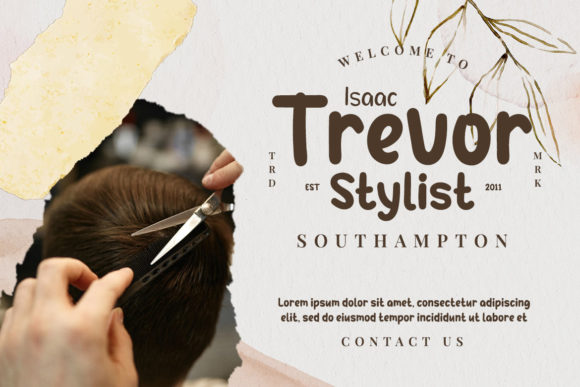
Gefuh Font
db-ku.com - Script & Handwritten -- Gefuh is a casual and adaptable handwritten font. Whatever the topic, this font will be a wonderful asset to your font library, as it has the potential to enhance any creation.